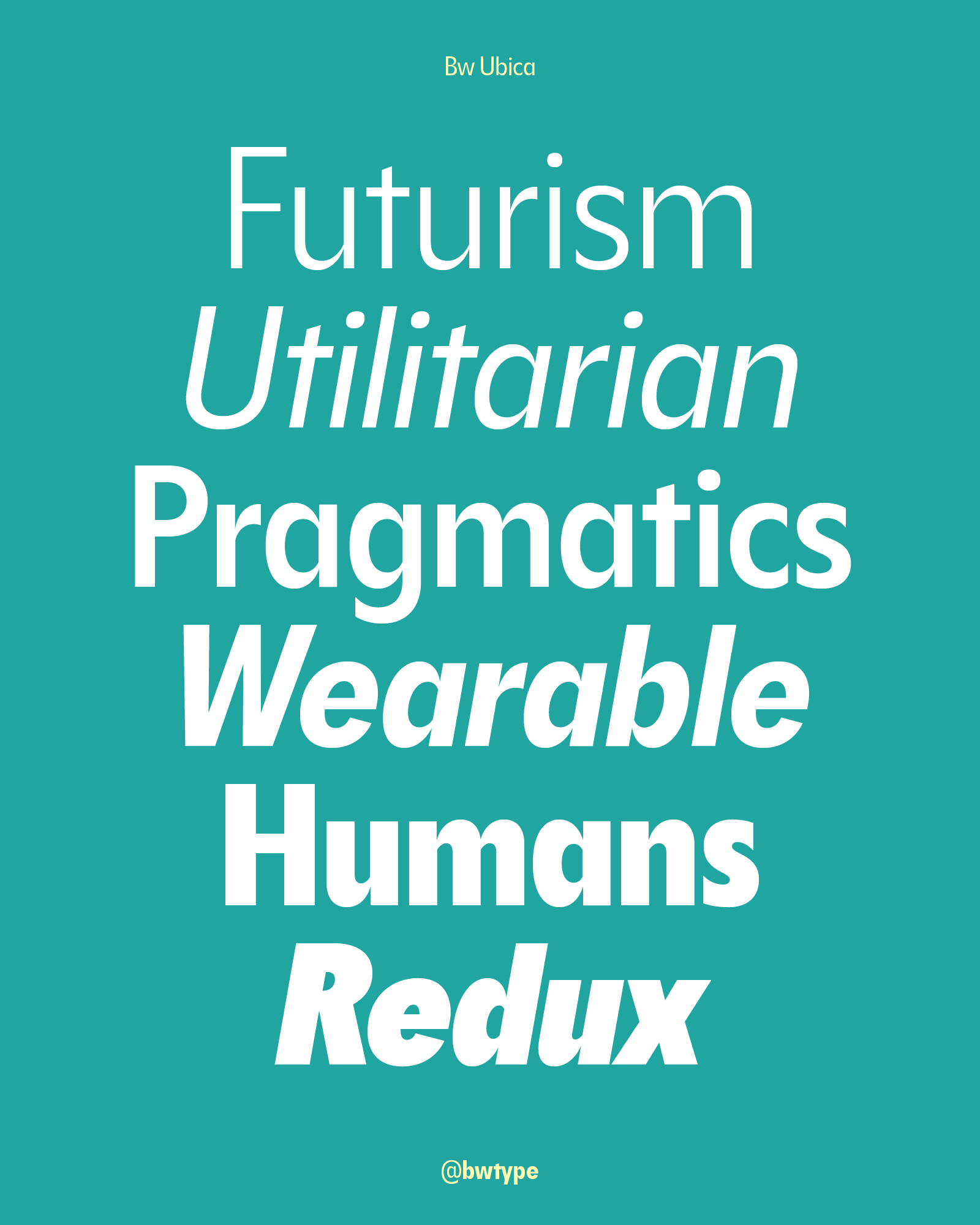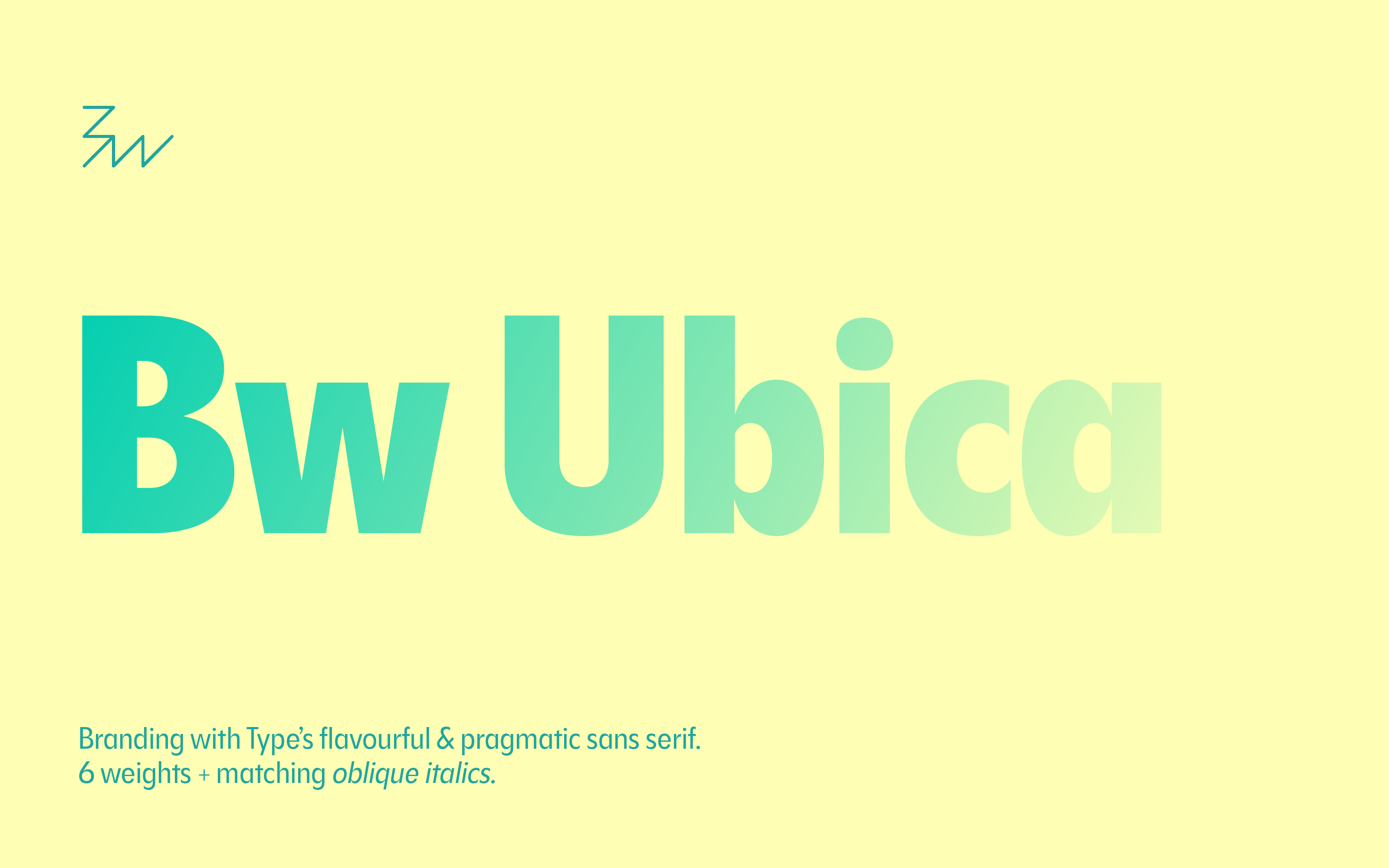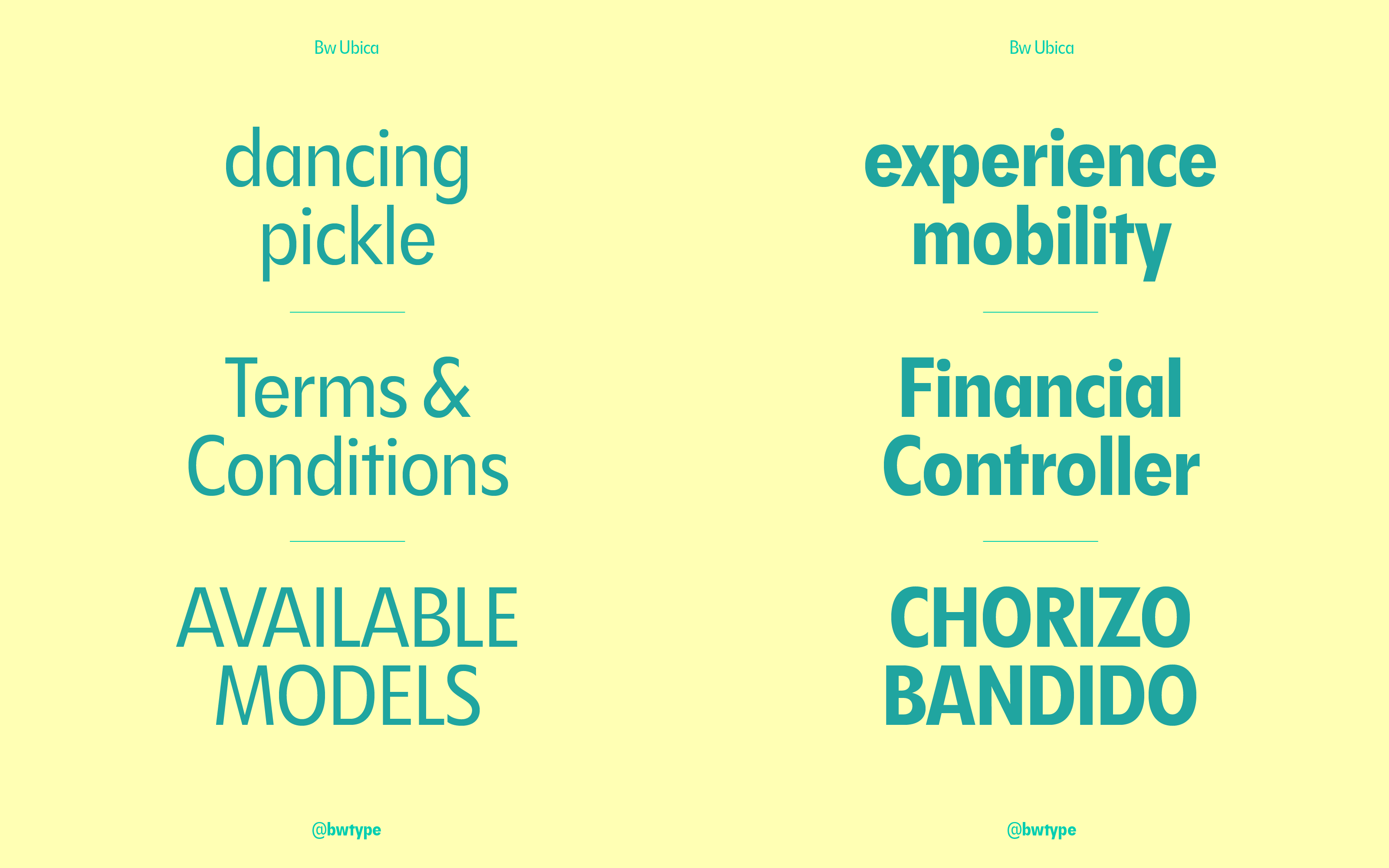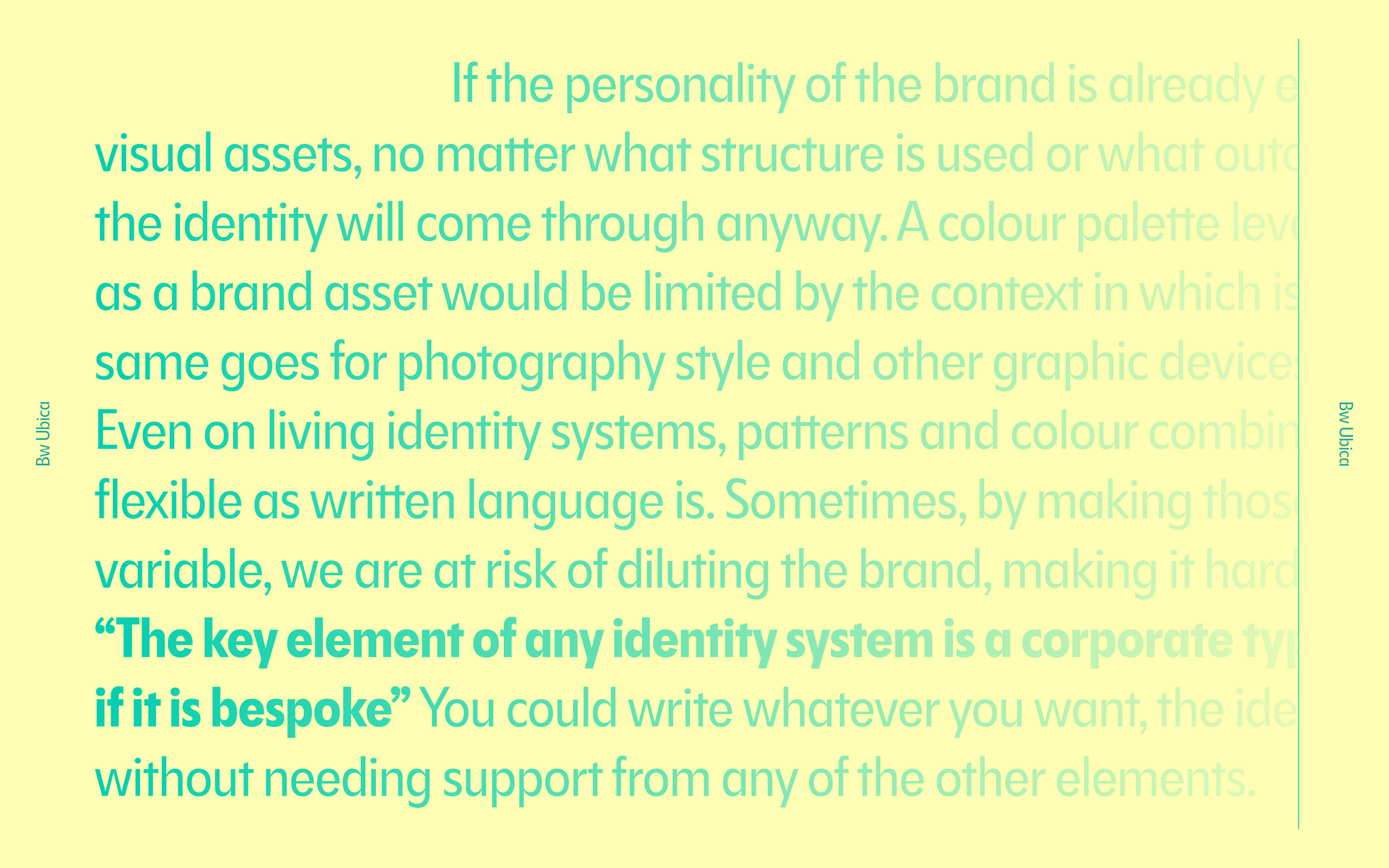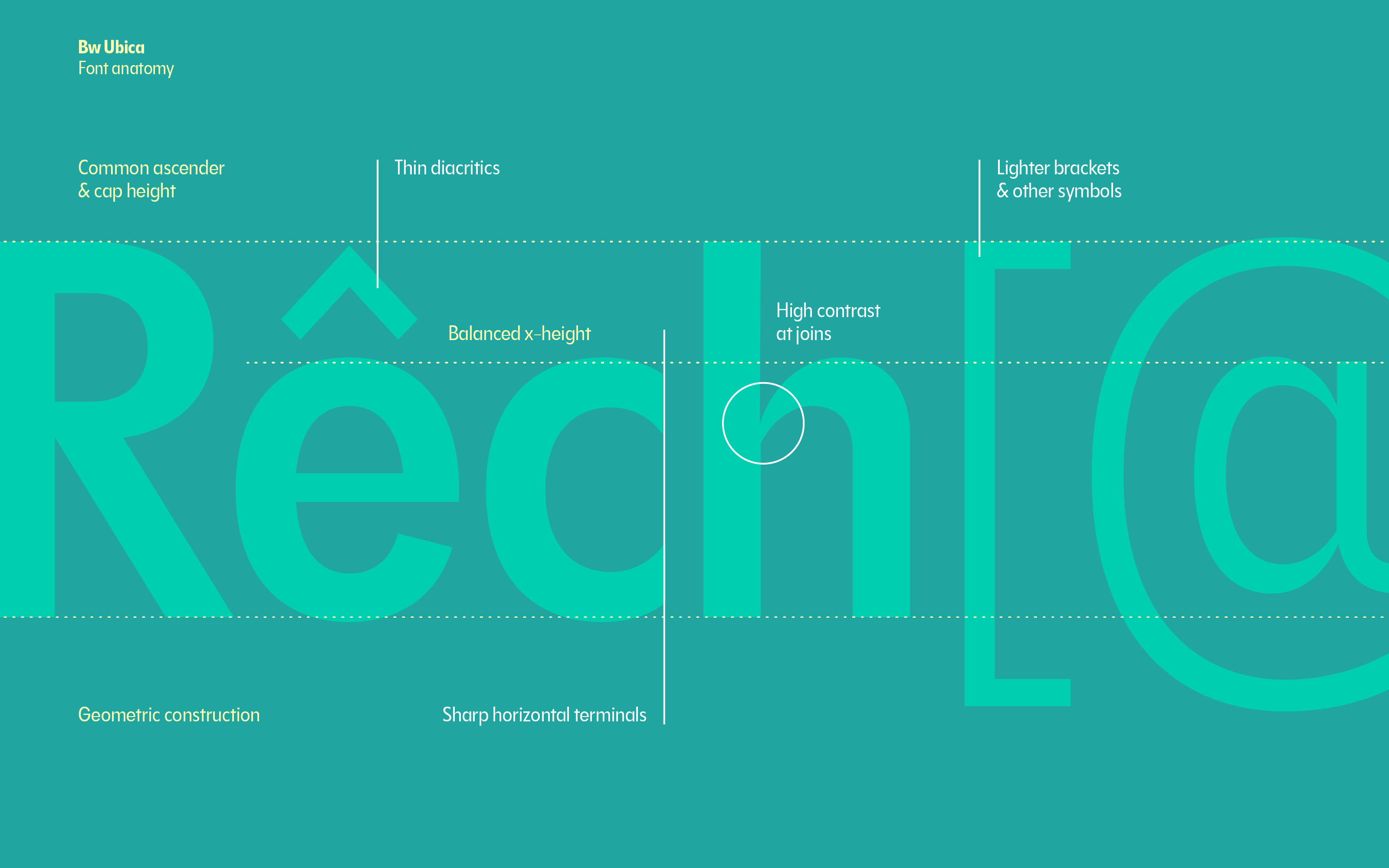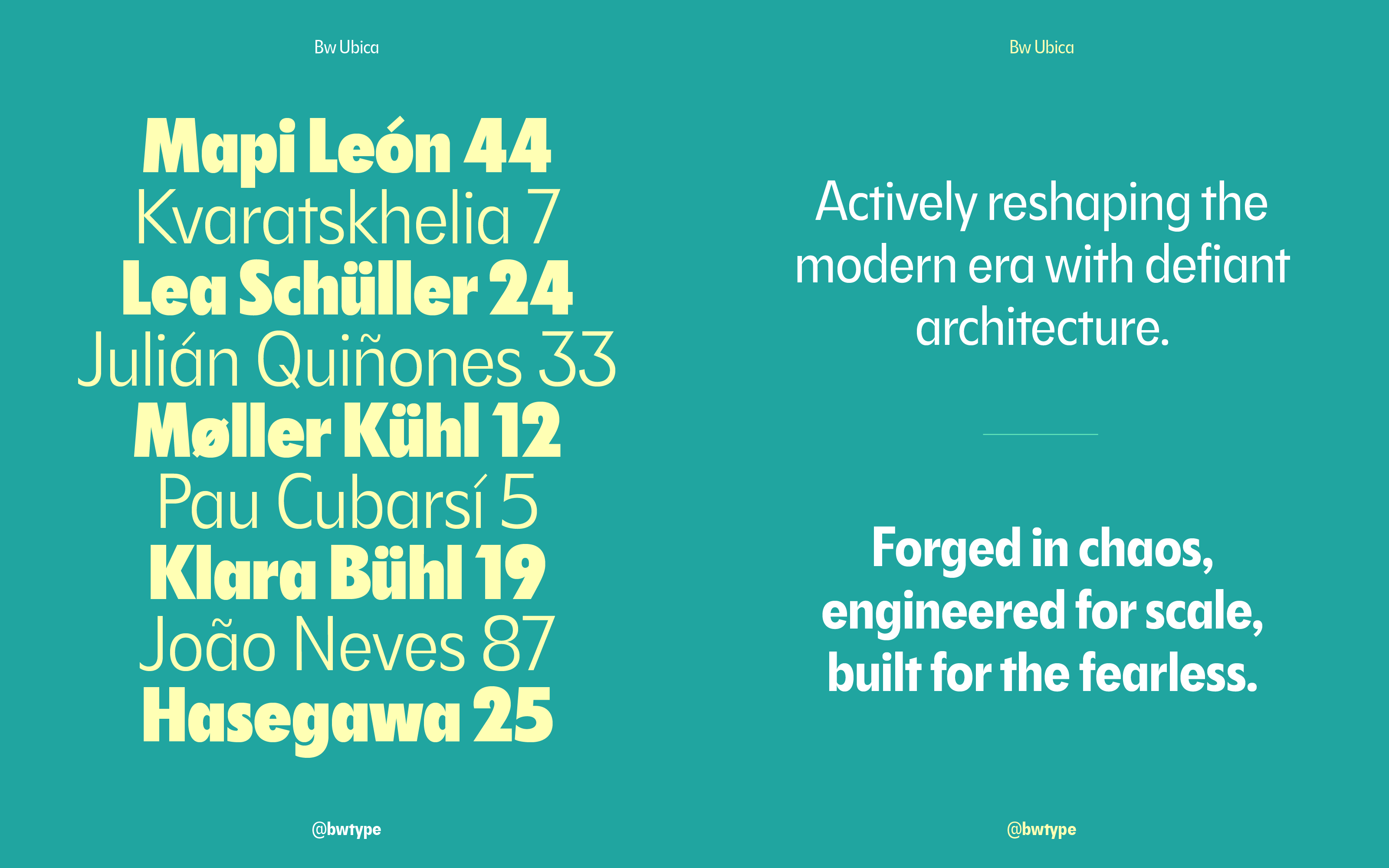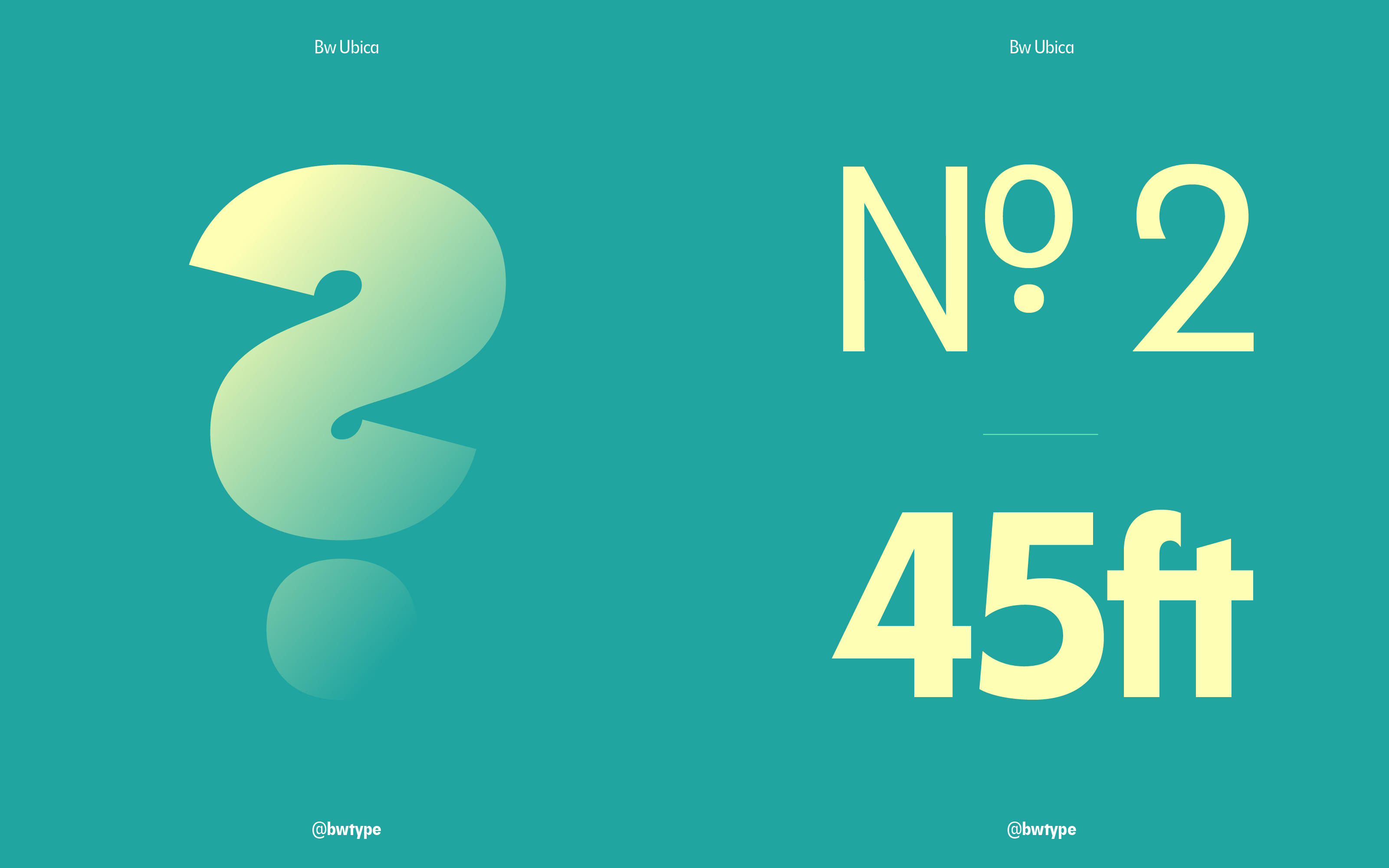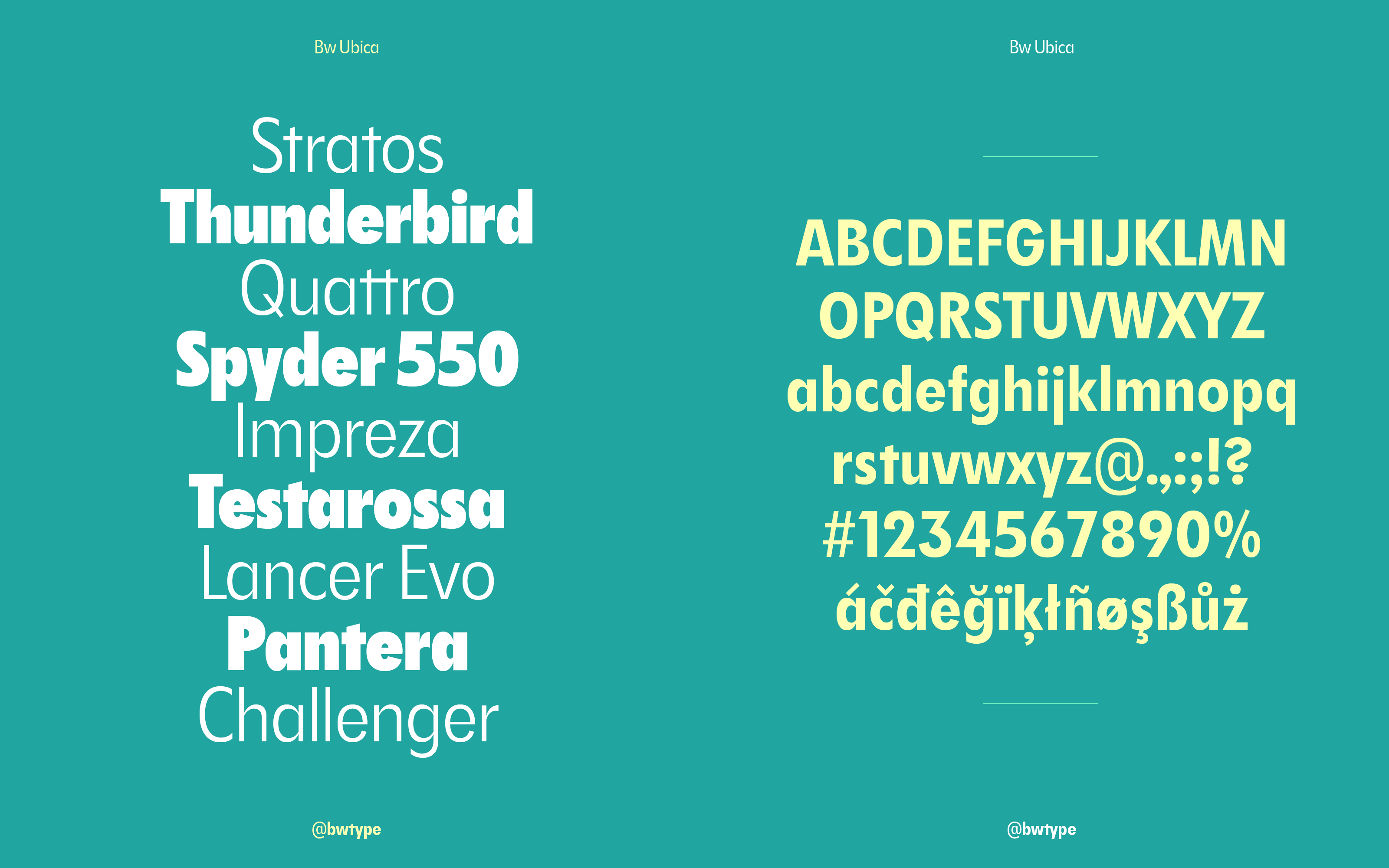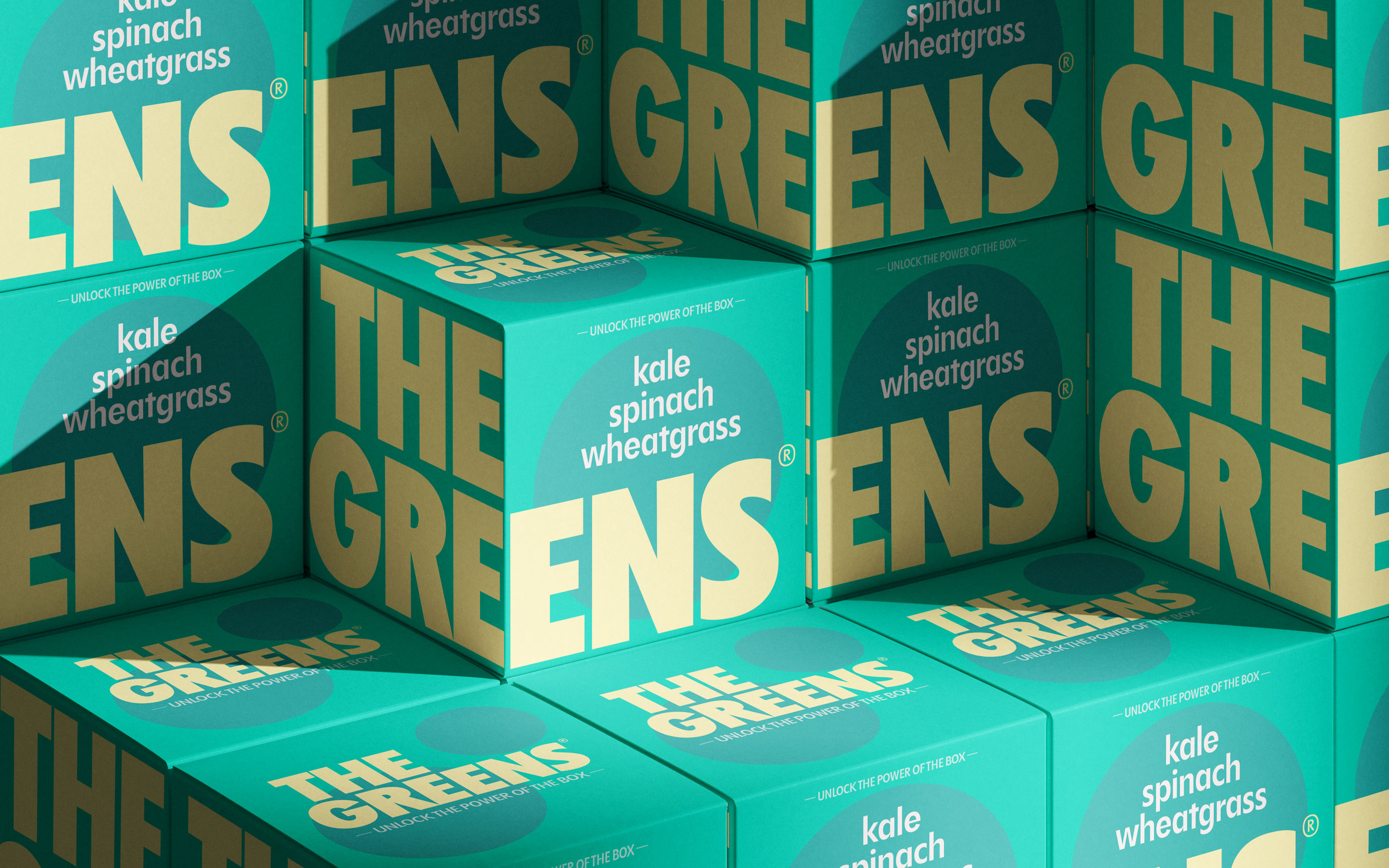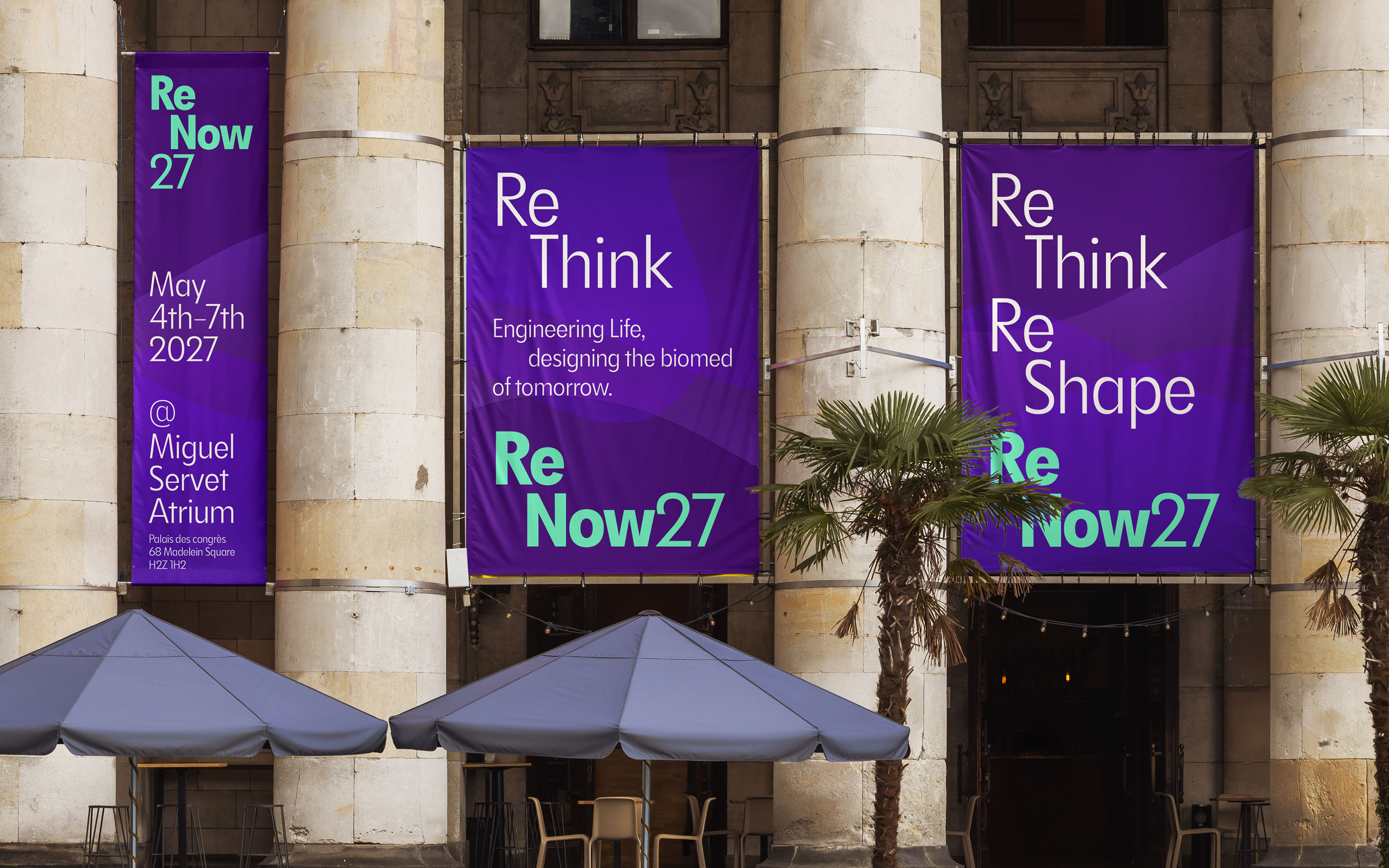
The Bw Ubica typeface pairs timeless aesthetics with current graphic design needs, providing the clean, authoritative edge required by digital-first platforms and forward-thinking consumer products alike.
Available in 12 versatile styles —6 weights from an elegant Light to a commanding Black with matching oblique italics— Bw Ubica gives brands a unified voice across editorial layouts, user interfaces, and physical product sleeves. Its balanced x-height and slightly condensed proportions are optimised for high legibility without losing a single hint of its character.
Designed by Alberto Romanos, Bw Ubica supports all European Latin languages and includes OpenType features like stylistic alternates, ligatures, and case-sensitive forms among others.
OpenType Features
Case Sensitive Forms (.case)
Discretionary Ligatures (.dlig)
Also Fractions, Superior and Inferior Figures,...